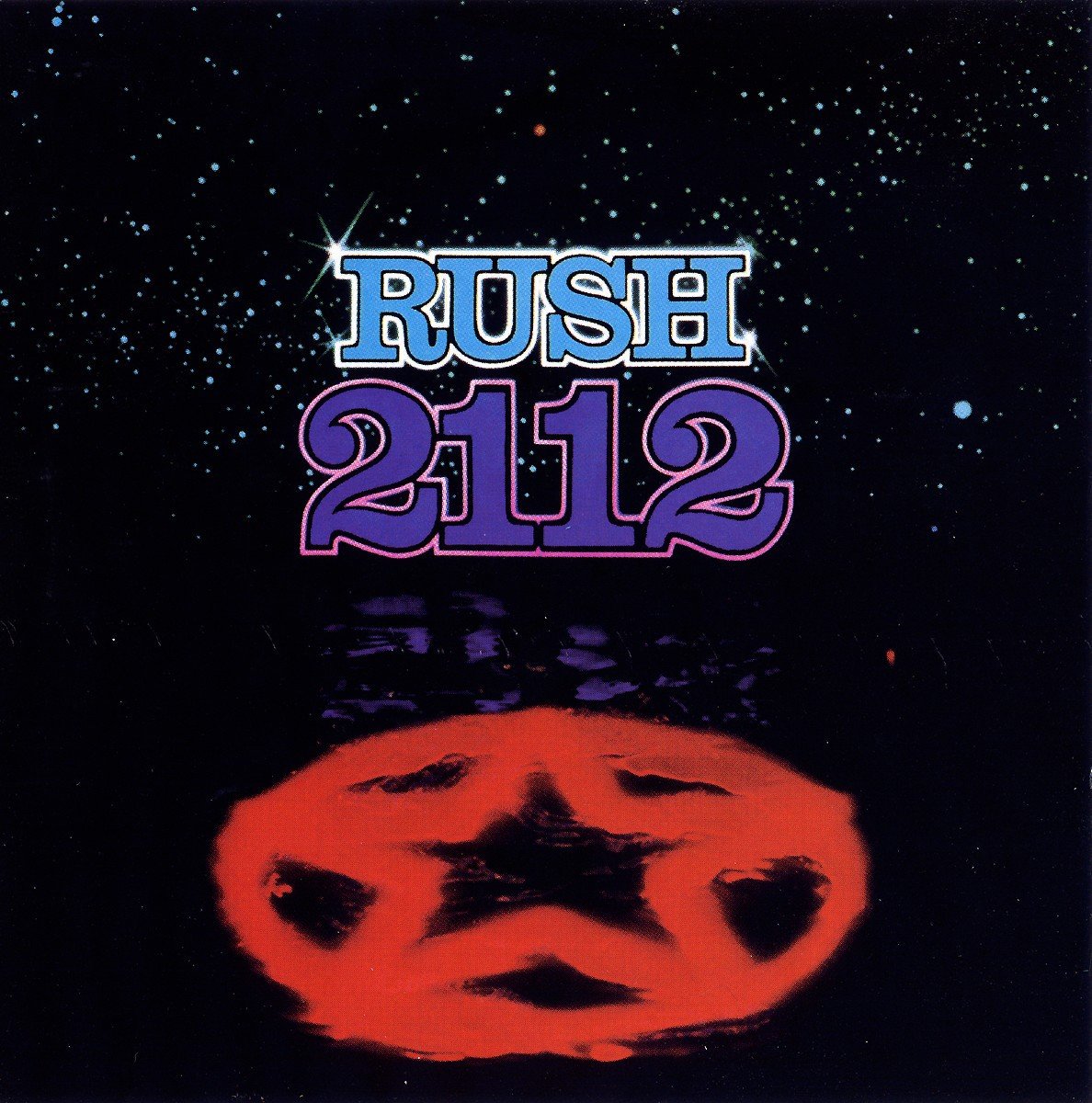
2112 (Rush) Font
Fonts in Use2112 is the fourth studio album by the Canadian rock band Rush, released in 1976. It is a concept album featuring a 20-minute title track and explores themes of individualism, collectivism, and authoritarianism in a dystopian future society.
The cover artwork's slab serif is similar to URW's Clarendon, a font released by Thorowgood and Co. in 1845. Craw Clarendon, a free font by CastCraft, is likely based on ATF's 1954-55 release. You can download it for free from the Fonts Used Section